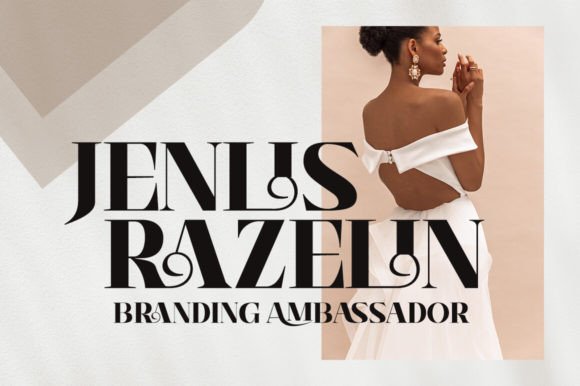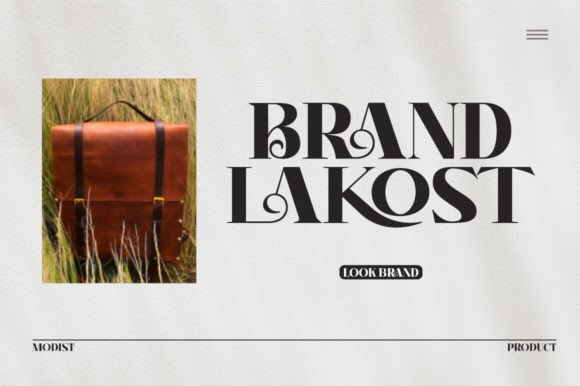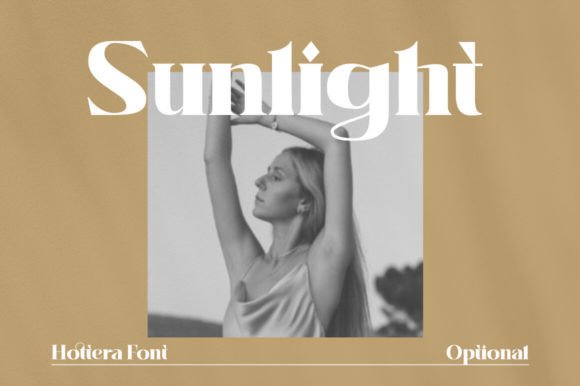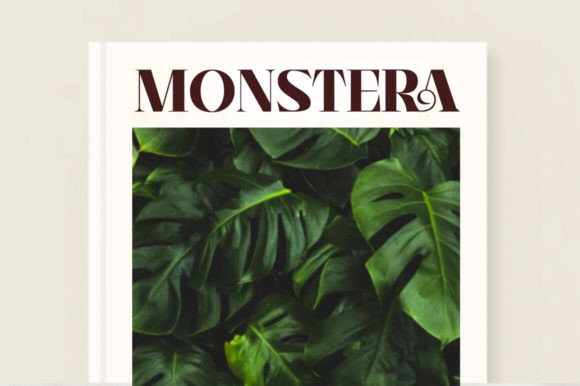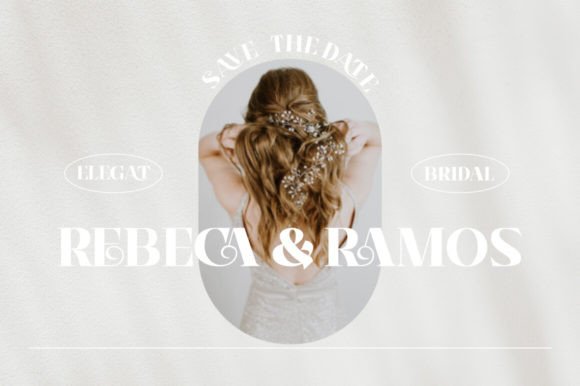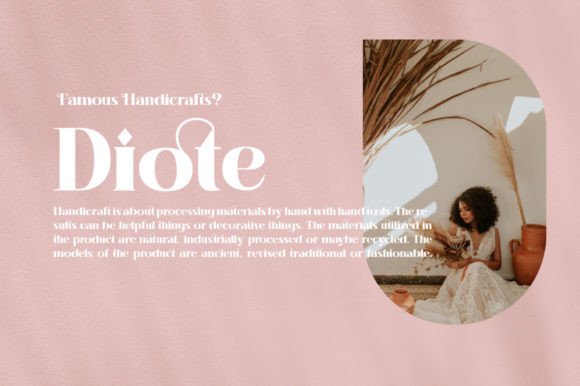
Introduction to Hottera Font
Do you remember the moment when you stumbled upon the perfect font for your design project? The one that brought everything together, elevating your work from ordinary to extraordinary? For many designers, this moment is a game-changer. And today, we’re excited to introduce you to one such game-changer: Hottera Font.
As a valuable design resource, Hottera Font is a masterpiece that combines elegance, creativity, and sophistication. Inspired by today’s beautiful Display serifs, this font boasts a thick, balanced, and varied shape, making it perfect for luxury and beauty-focused projects. With its high-quality design, it’s no wonder that designers are flocking to Hottera Font for their creative projects.
Key Features of Hottera Font
- High-quality design resource for creative projects, ideal for use in digital and print media.
- Unique, modern aesthetic with a bold and eye-catching style, ideal for use in branding, advertising, and other high-impact design projects.
Honest Review: Hottera Font
Here’s what I liked about the Hottera Font: ✨ The font is incredibly versatile and can be used for a wide range of creative projects, from business cards to website headers. The transparent background feature is also a plus, allowing for seamless integration with any design element. The font itself is sleek and modern, making it perfect for any project that needs a touch of sophistication.
Here are some key features of the Hottera Font:
- Compatible with a wide range of creative projects
Tips for Getting the Most Out of Hottera Font
To get the most out of the Hottera Font, use it in combination with other design elements such as images and graphics. You can also experiment with different font sizes and colors to create unique and eye-catching designs.
Common Use Cases for Hottera Font
The Hottera Font is perfect for a variety of creative projects, including social media graphics, blog posts, and presentations. It’s also great for use in branding and marketing materials, such as logos and business cards.